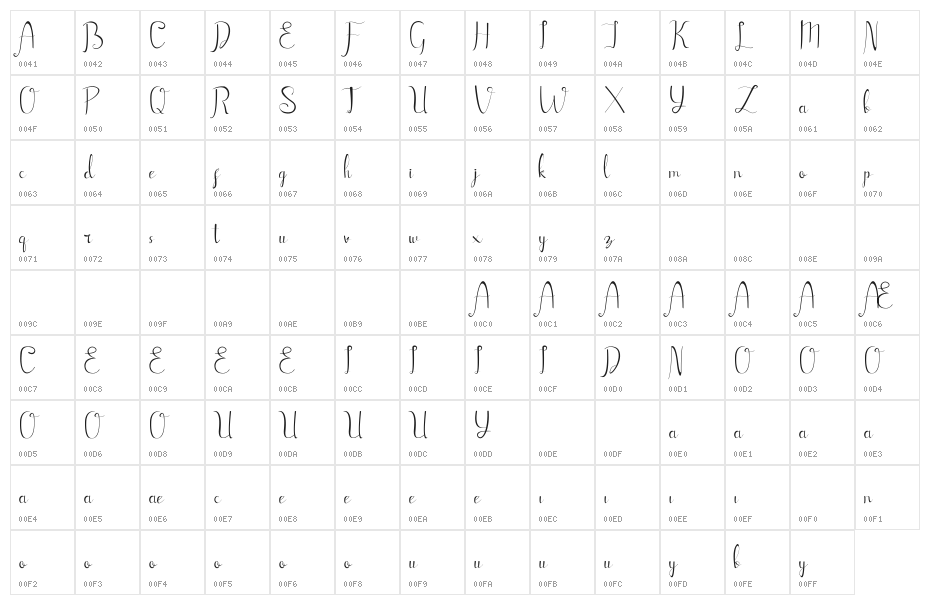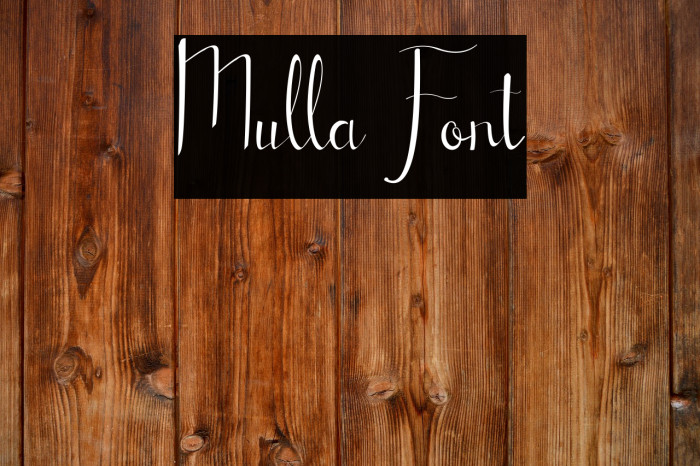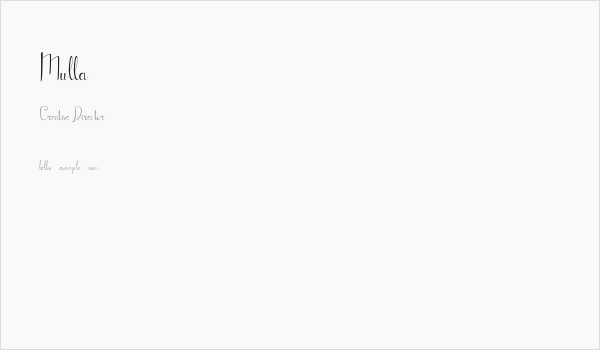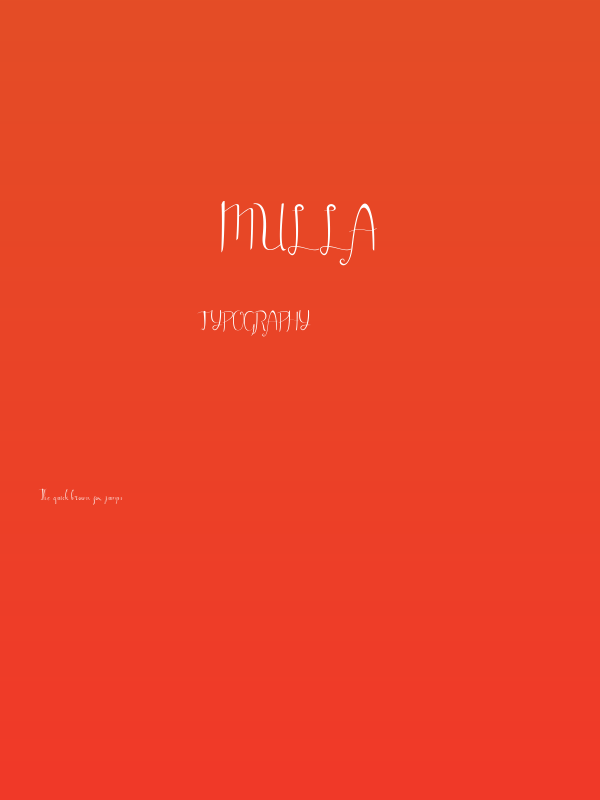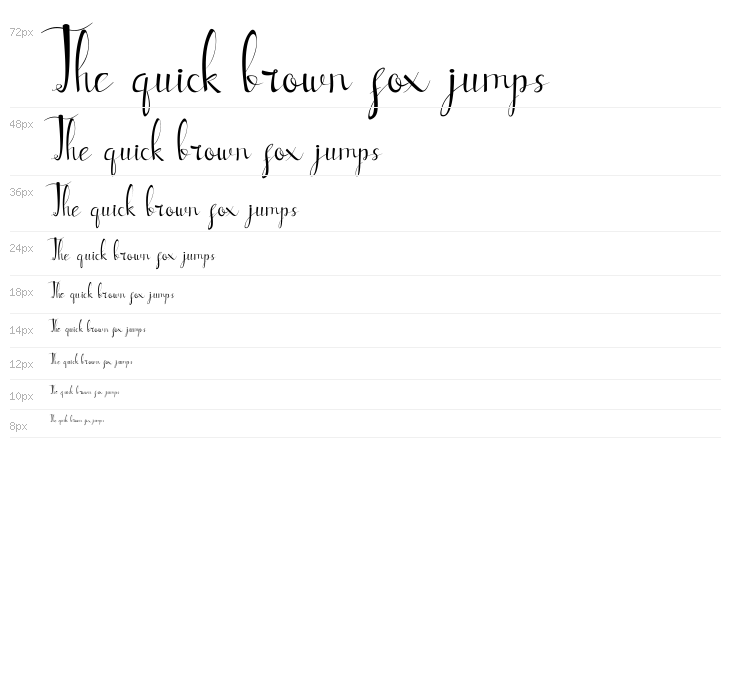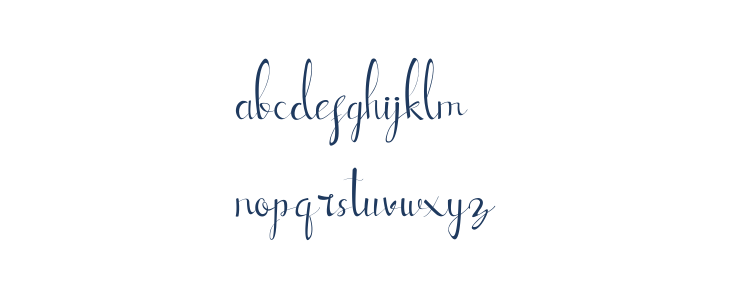
Mulla Font
Mulla Description
This font features an elegant and whimsical design, characterized by its flowing, cursive-like strokes and playful loops. The uppercase letters are tall and slender, with distinctive flourishes that add a touch of sophistication. The lowercase letters maintain a consistent style, with smooth curves and delicate lines that create a harmonious balance. The numerals and special characters are crafted with the same attention to detail, ensuring a cohesive look across all elements. This font's unique style makes it ideal for projects that require a touch of elegance and creativity.
Mulla
Use CaseLogos, Headlines, Invitations
Proposed ProjectsIdeal for wedding invitations, greeting cards, branding, and decorative posters.